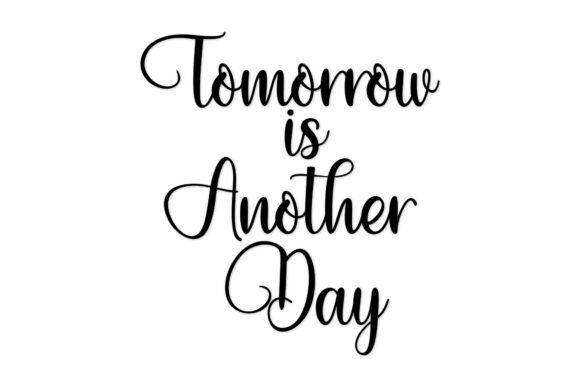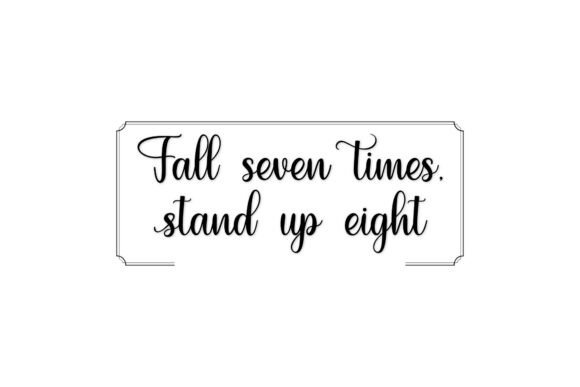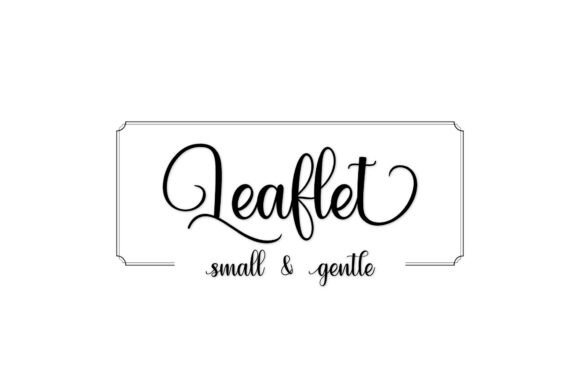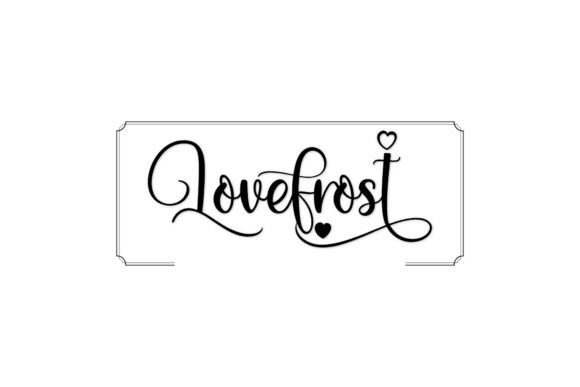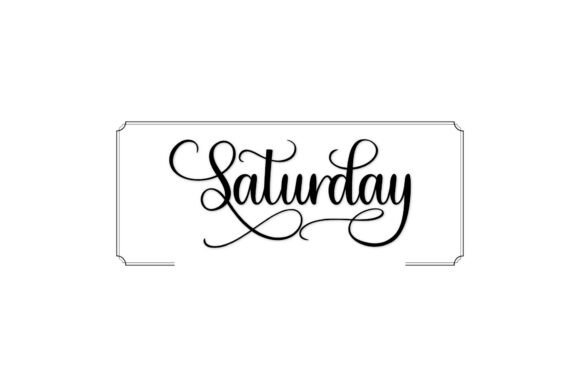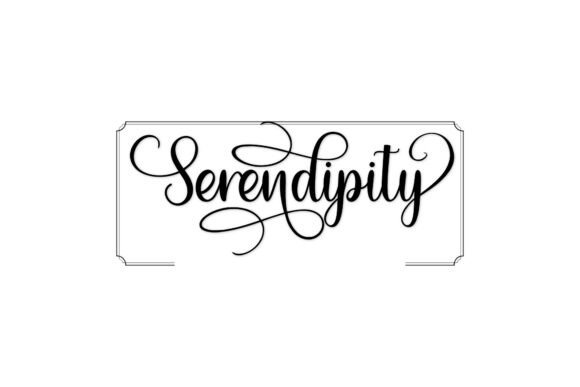
Hawthorne Font: Elevate Your Designs with Elegance and Sophistication
In the world of typography, fonts play a crucial role in conveying the tone and personality of a brand, product, or service. For designers and crafters seeking to add a touch of luxury and sophistication to their projects, the Hawthorne Font is an exceptional choice. This premium script font boasts a modern and elegant style, making it perfect for a wide range of applications, from branding and invitations to packaging and editorial design.
The Distinctive Features of Hawthorne Font
Hawthorne Font is characterized by its intricate swashes, flowing lines, and sophisticated look. These features combine to create a truly unique and eye-catching typographic experience. The font’s modern and elegant style is sure to elevate any design project, adding a level of refinement and luxury that is hard to match.
Some of the key features of Hawthorne Font include:
- Intricate Swashes: The font’s swashes add a touch of elegance and sophistication, making it perfect for designs that require a level of luxury and refinement.
- Flowing Lines: The font’s flowing lines create a sense of movement and fluidity, adding to its overall sense of elegance and sophistication.
- Sophisticated Look: The font’s sophisticated look makes it perfect for a wide range of applications, from branding and invitations to packaging and editorial design.
Hawthorne Font is a versatile and flexible font that is perfect for designers and crafters. Whether you’re working on a branding project, creating invitations, or designing packaging, this font is sure to add a touch of elegance and sophistication to your work.
Some of the applications where Hawthorne Font excels include:
- Branding: Use Hawthorne Font to create a luxurious and sophisticated brand identity that stands out from the crowd.
- Invitations: Add a touch of elegance and refinement to your invitations with Hawthorne Font.
- Packaging: Use Hawthorne Font to create eye-catching and sophisticated packaging designs that elevate your product.
- Editorial Design: Hawthorne Font is perfect for editorial design projects, such as magazines, newspapers, and books, where a touch of elegance and sophistication is required.
Why Choose Hawthorne Font?
With so many fonts available, why choose Hawthorne Font? Here are just a few reasons why this premium script font stands out from the crowd:
- Unique and Eye-Catching: Hawthorne Font is a truly unique and eye-catching font that is sure to add a touch of elegance and sophistication to your designs.
- High-Quality: This premium font is of exceptionally high quality, with intricate swashes and flowing lines that create a sense of movement and fluidity.
- Versatile: Hawthorne Font is a versatile font that can be used in a wide range of applications, from branding and invitations to packaging and editorial design.
In conclusion, Hawthorne Font is a premium script font that offers a unique and eye-catching way to add elegance and sophistication to your designs. With its intricate swashes, flowing lines, and sophisticated look, this font is perfect for designers and crafters seeking to create luxurious and refined designs. Whether you’re working on a branding project, creating invitations, or designing packaging, Hawthorne Font is an exceptional choice.